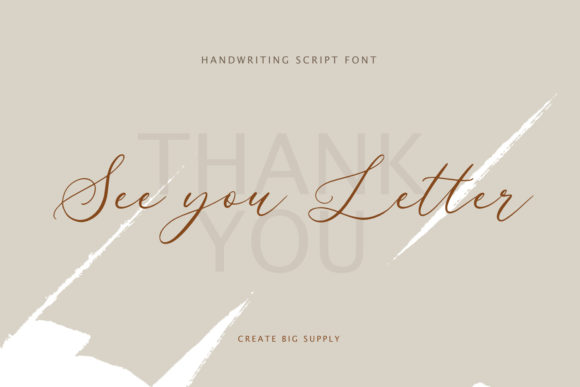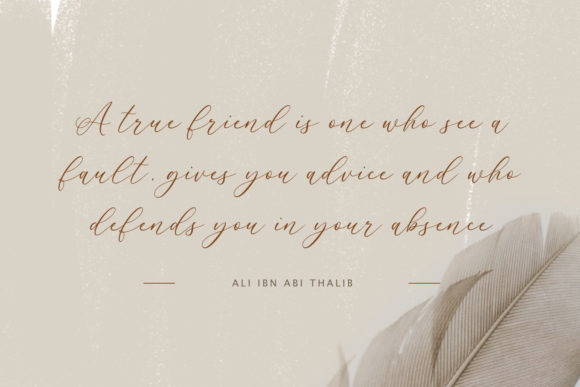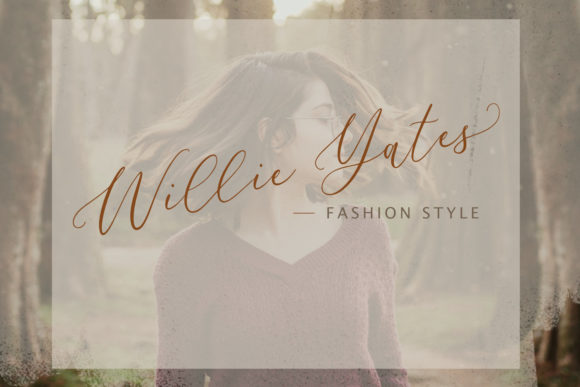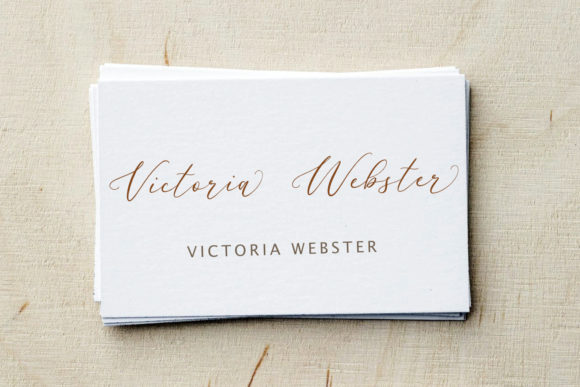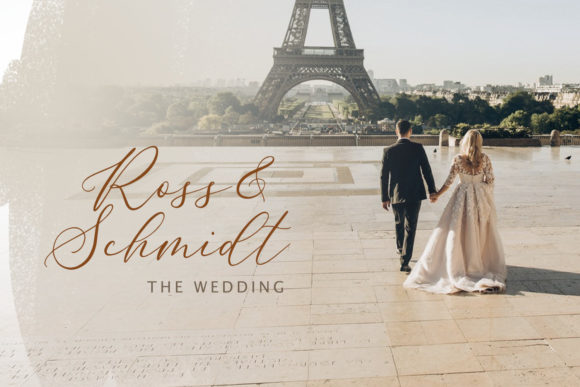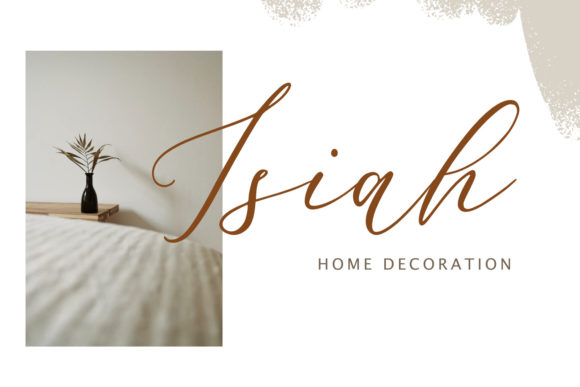
About Meymona Script Font
Meymona Script is a thin lettered and graceful script font. Fall for its ravishing style and use it to create gorgeous wedding invitations, beautiful stationary art, eye-catching social media posts, and much more! This font is PUA encoded which means you can access all of the amazing glyphs and ligatures with ease!